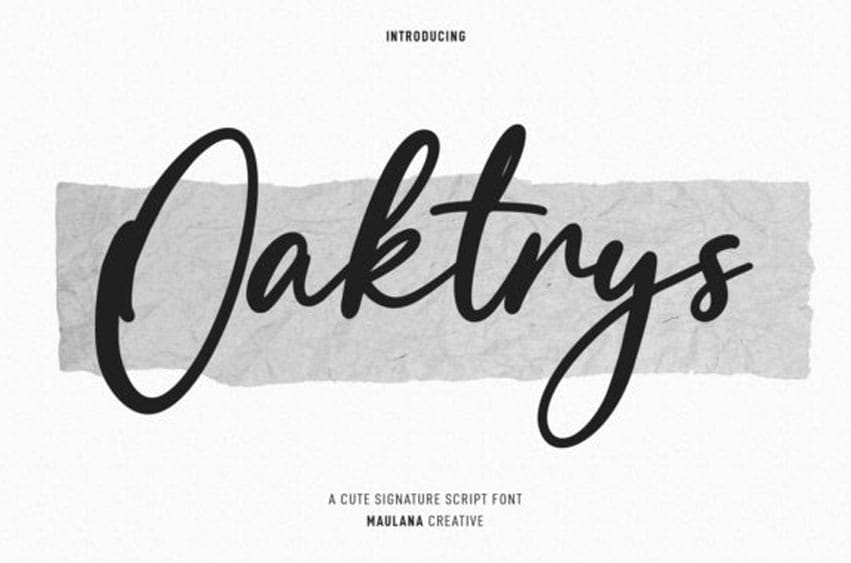
Oaktrys Font is a gorgeous paint brushed script font.
It is perfect for product packaging, branding project, magazine covers, social media, wedding, or just used to express words above the background.